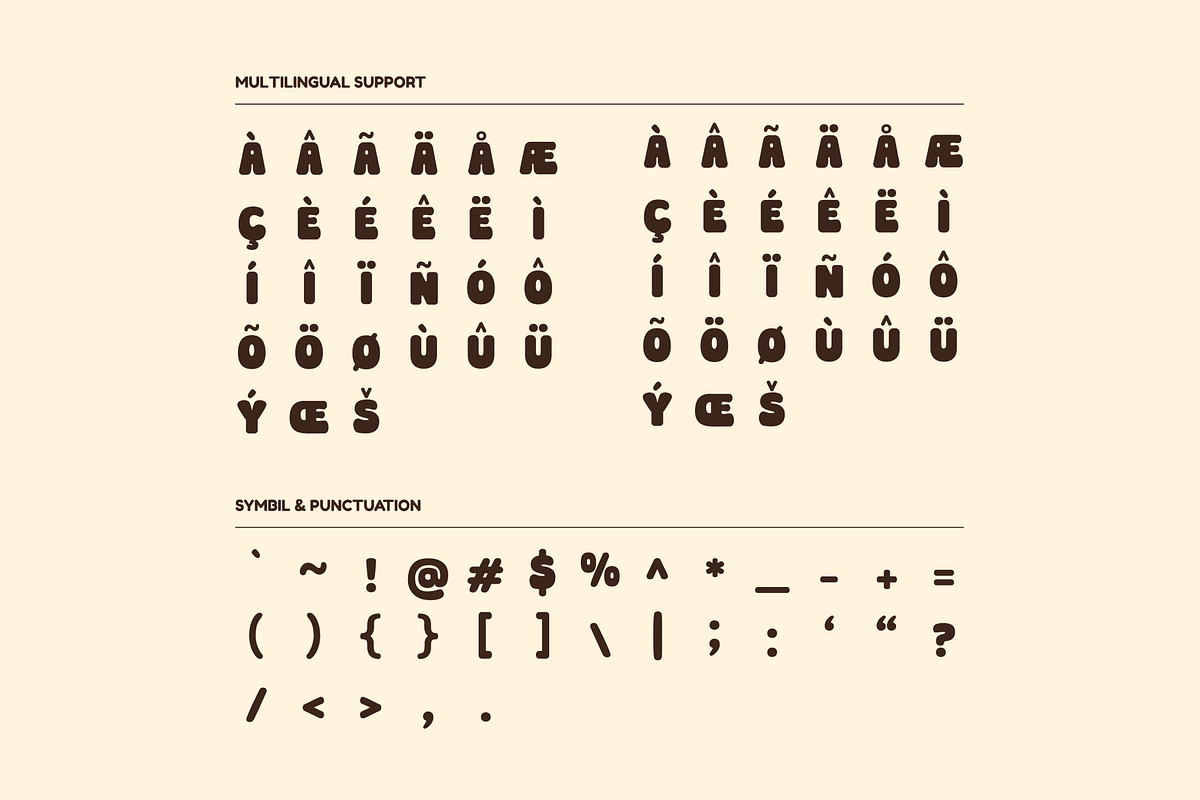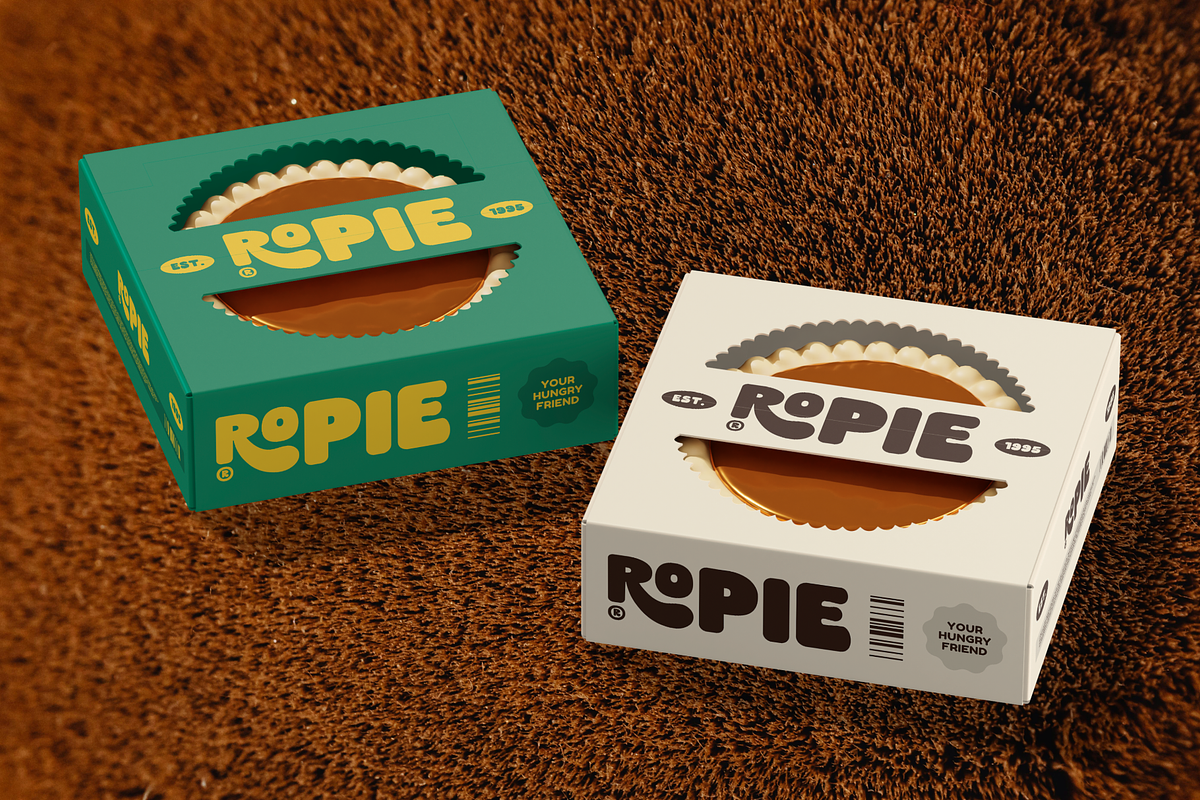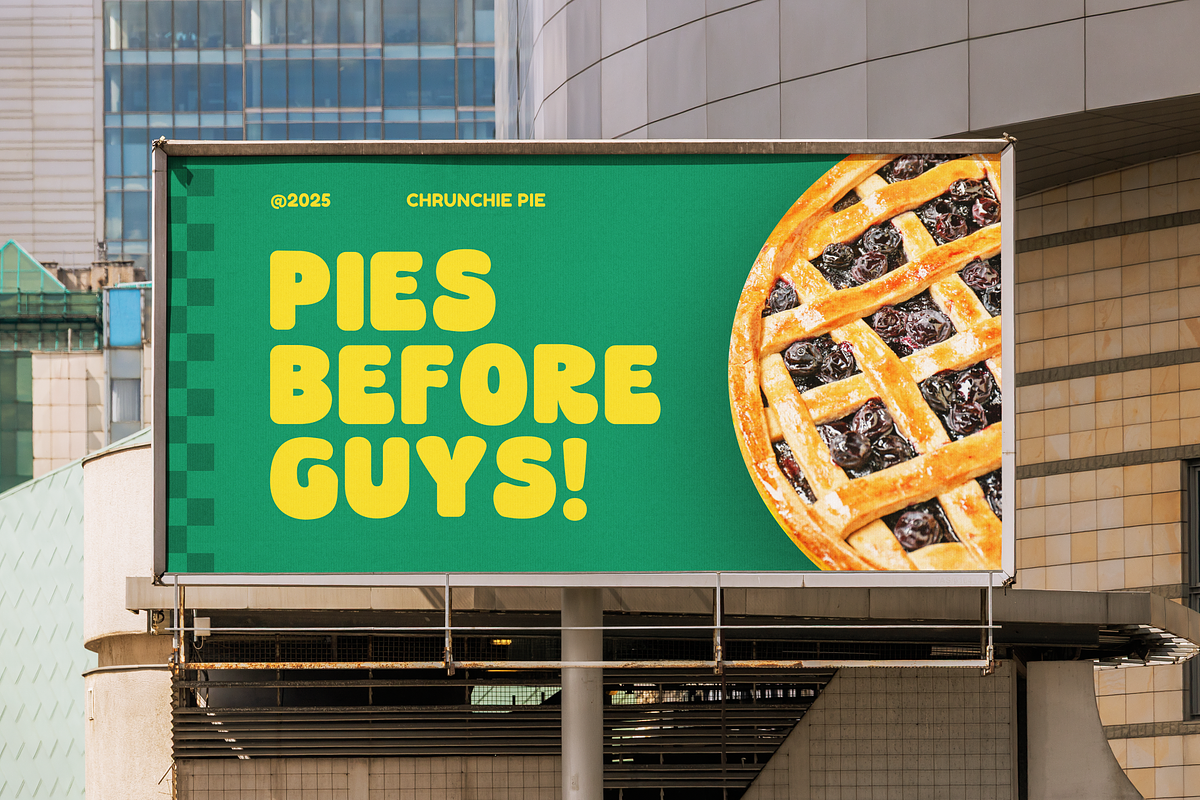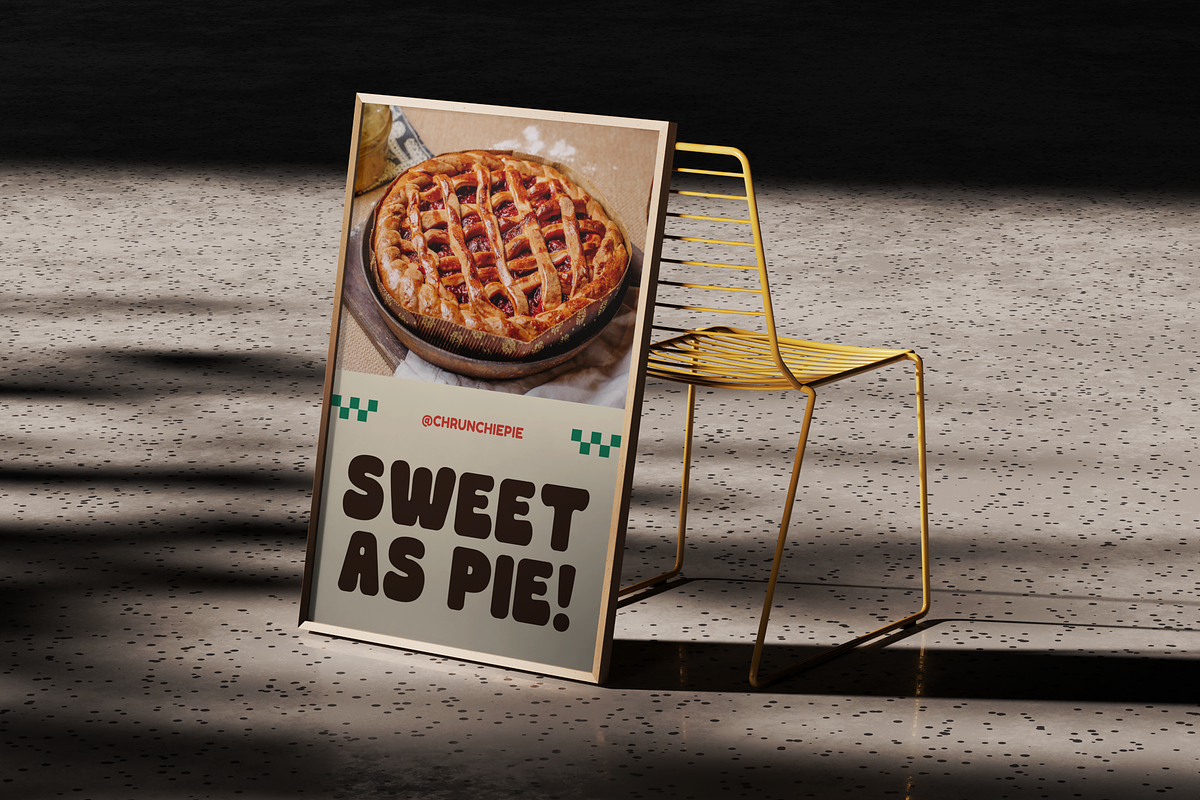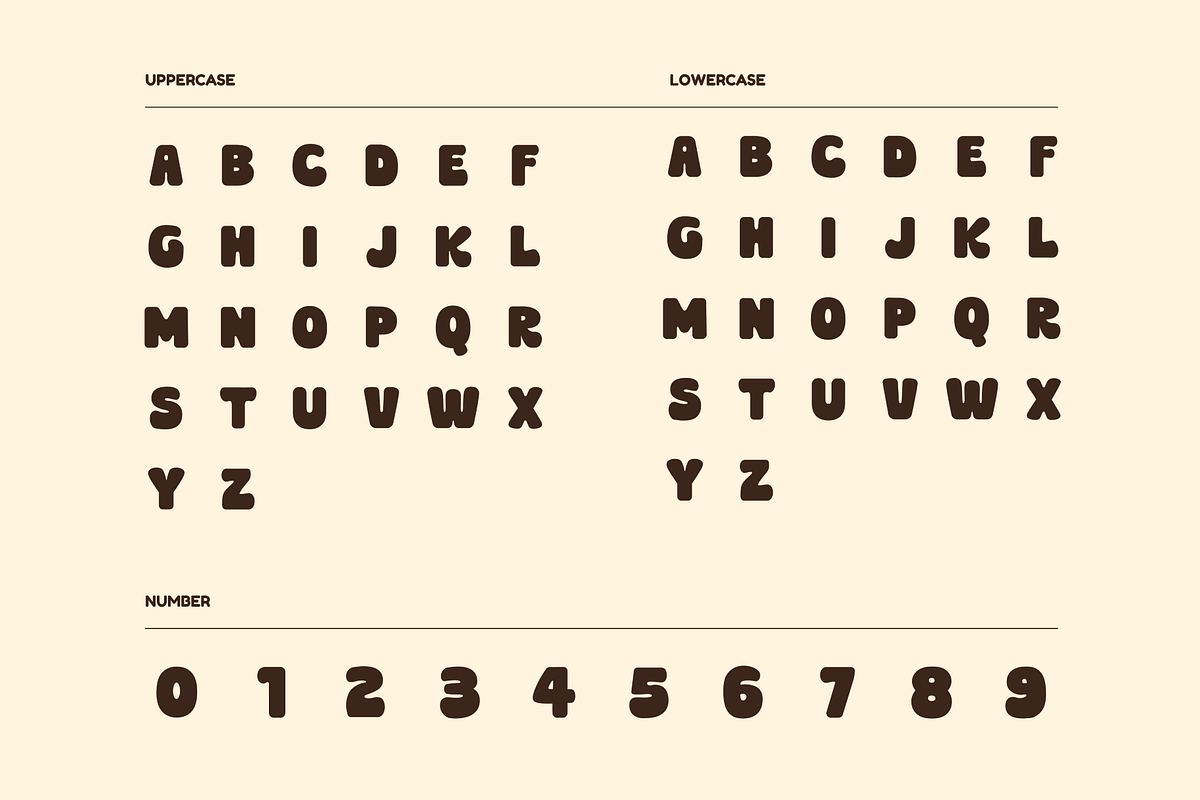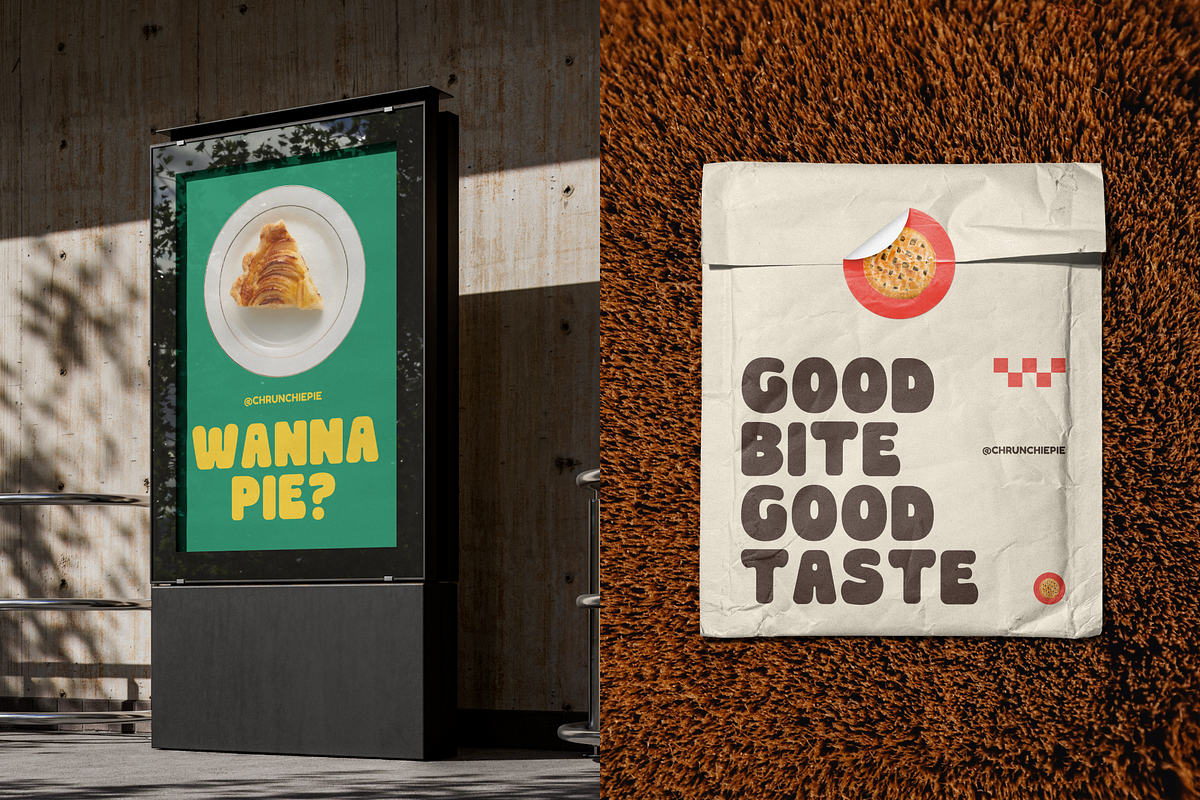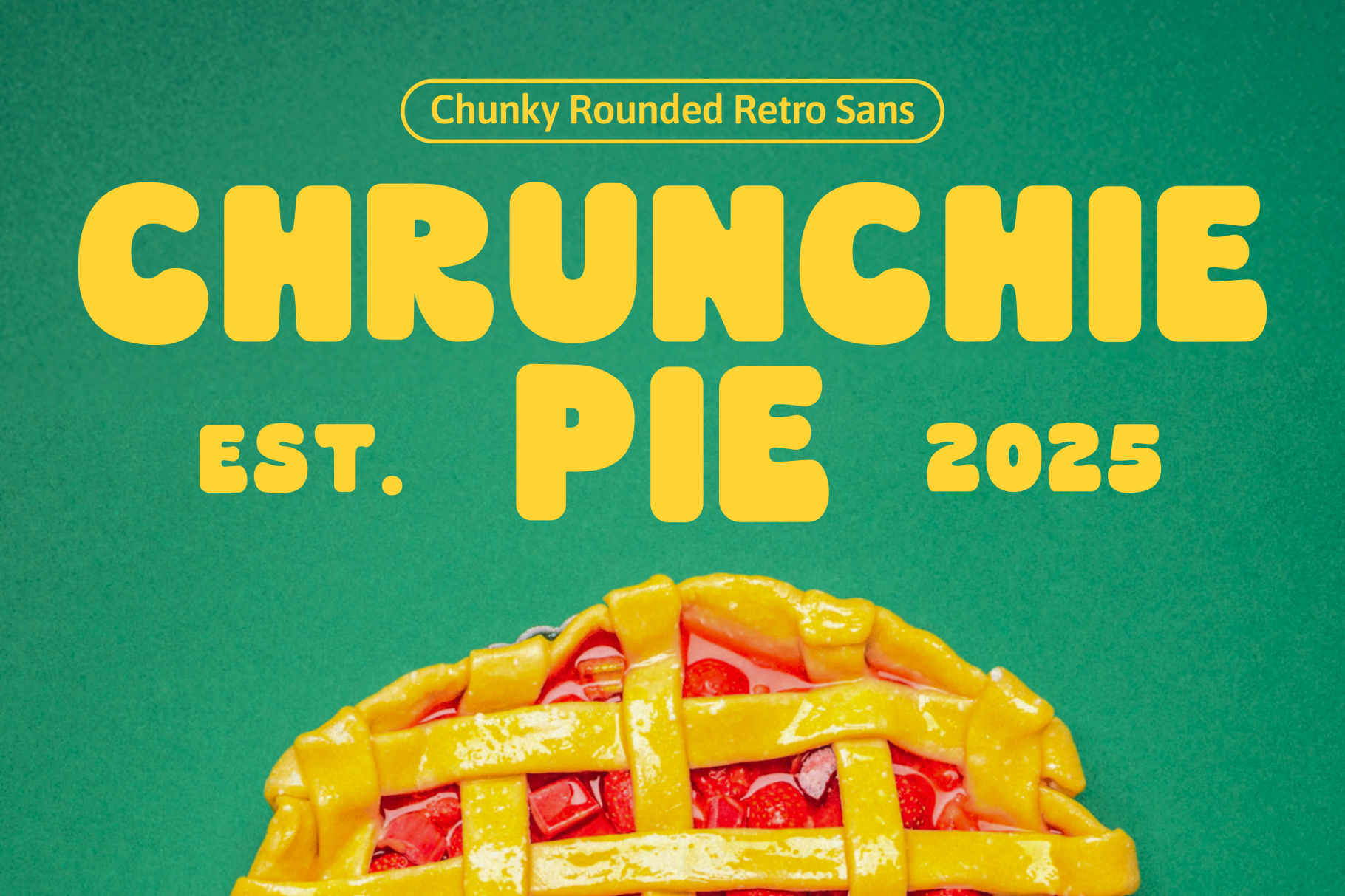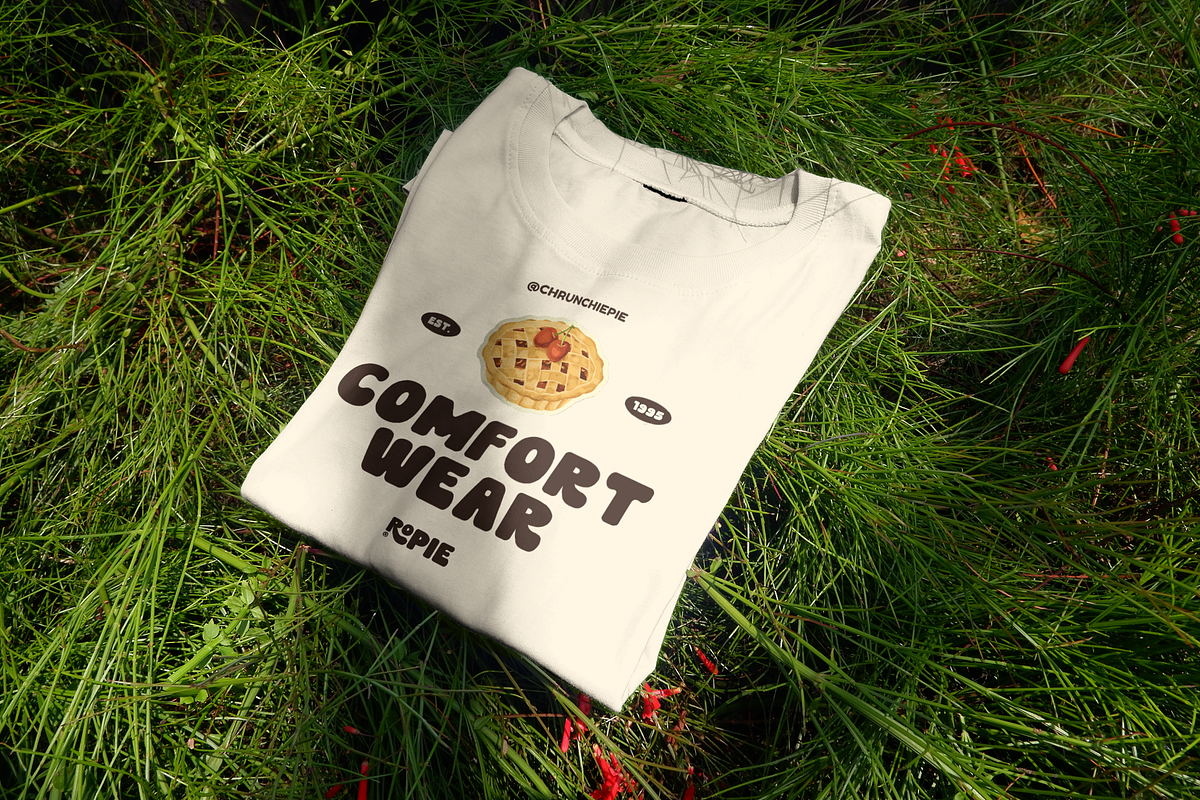
Chrunchie Pie Font
Chrunchie Pie Playful Font brings bold retro energy to your designs. With its playful curves and striking character, it’s perfect for posters, logos, branding, and vintage-inspired visuals. Make your text stand out with this stylish, modern-meets-retro typeface that captures attention instantly. Ideal for creative professionals and designers.